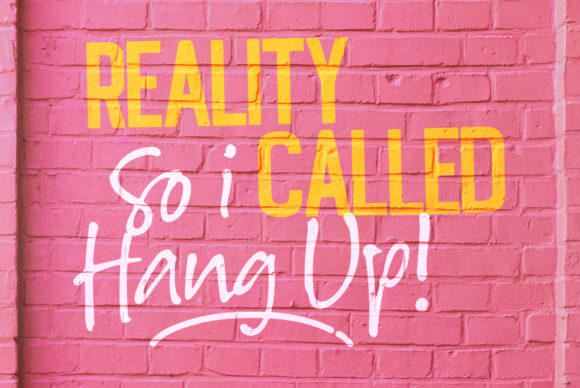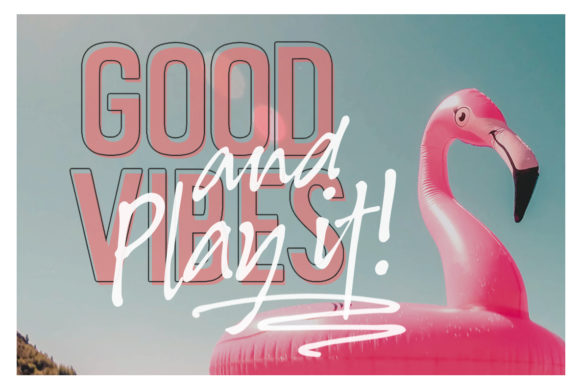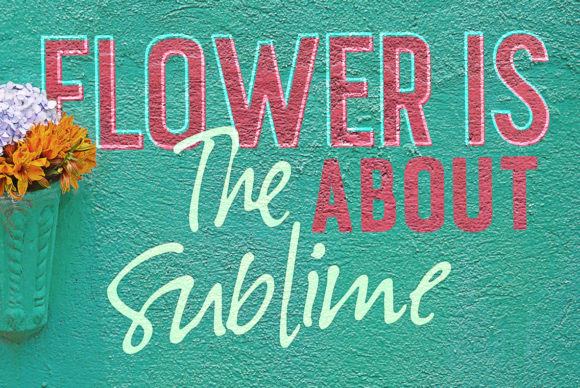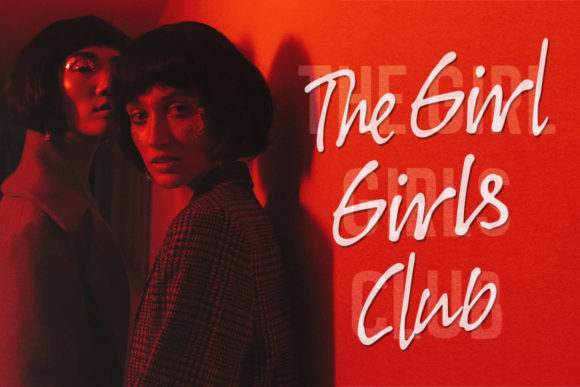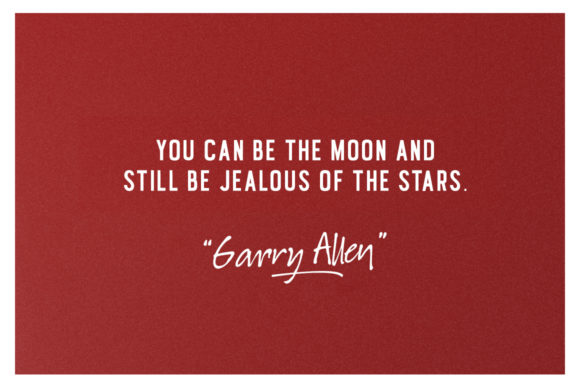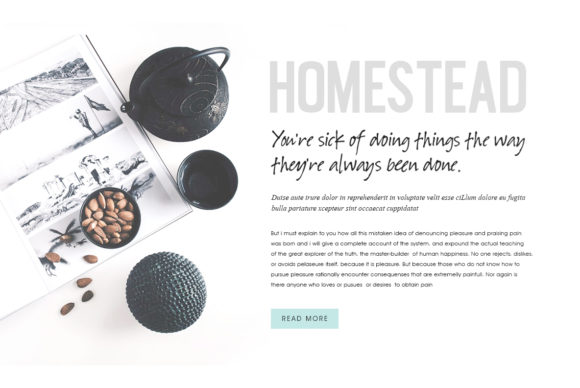
Hawaiian Duo Font: Elevate Your Designs with a Touch of Aloha
Are you tired of using the same old fonts in your designs? Look no further! Introducing the Hawaiian Duo Font, a stunning font pair that will add a touch of aloha to your creations. This amazing duo includes two distinct styles: a striking version and a messy, yet charming and natural version. The best part? They can be combined perfectly to create a unique design in an instant.
What is the Hawaiian Duo Font?
The Hawaiian Duo Font is a carefully crafted font pair that embodies the spirit of Hawaii. The duo consists of two fonts: a clean and modern sans-serif font, and a handwritten font with a charming, organic feel. Both fonts are designed to work seamlessly together, allowing you to create stunning designs that are sure to impress.
The Striking Version: Modern and Sophisticated
The striking version of the Hawaiian Duo Font is a clean and modern sans-serif font. Its sleek lines and geometric shapes make it perfect for headlines, titles, and other design elements where you want to make a statement. This font is highly legible, even at small sizes, making it ideal for use in a variety of design applications, from brochures and flyers to websites and social media graphics.
The Messy yet Charming Version: Organic and Whimsical
The messy, yet charming version of the Hawaiian Duo Font is a handwritten font that adds a touch of whimsy and personality to your designs. Its organic feel and imperfect lines make it perfect for adding a human touch to your designs. Use this font for body text, quotes, or any other design element where you want to add a bit of character and flair.
Combining the Two Fonts: Endless Design Possibilities
The real magic of the Hawaiian Duo Font happens when you combine the two styles. The contrast between the clean, modern sans-serif font and the messy, handwritten font creates a visually appealing combination that is sure to elevate your designs. Use the striking version for headlines and the charming version for body text, or vice versa – the possibilities are endless!
The Hawaiian Duo Font is perfect for designers and crafters who want to add a touch of aloha to their creations. Whether you’re designing a logo, creating a social media graphic, or crafting a handmade project, this font duo is sure to inspire. The fonts are highly versatile and can be used in a variety of design applications, from digital projects to print materials.
Key Features of the Hawaiian Duo Font
- Two distinct styles: striking and charming
- Clean and modern sans-serif font
- Handwritten font with an organic feel
- Highly legible, even at small sizes
- Perfect for headlines, titles, and body text
- Endless design possibilities when combining the two fonts
With the Hawaiian Duo Font, you’ll never run out of design ideas. The versatility of this font pair makes it perfect for a wide range of design applications, from modern and sleek to whimsical and playful. So why wait? Download the Hawaiian Duo Font today and get ready to elevate your designs with a touch of aloha!
In conclusion, the Hawaiian Duo Font is a must-have for designers and crafters who want to add a touch of personality and whimsy to their creations. With its striking and charming versions, this font duo offers endless design possibilities that are sure to inspire. Whether you’re a seasoned designer or just starting out, the Hawaiian Duo Font is the perfect addition to your font library.